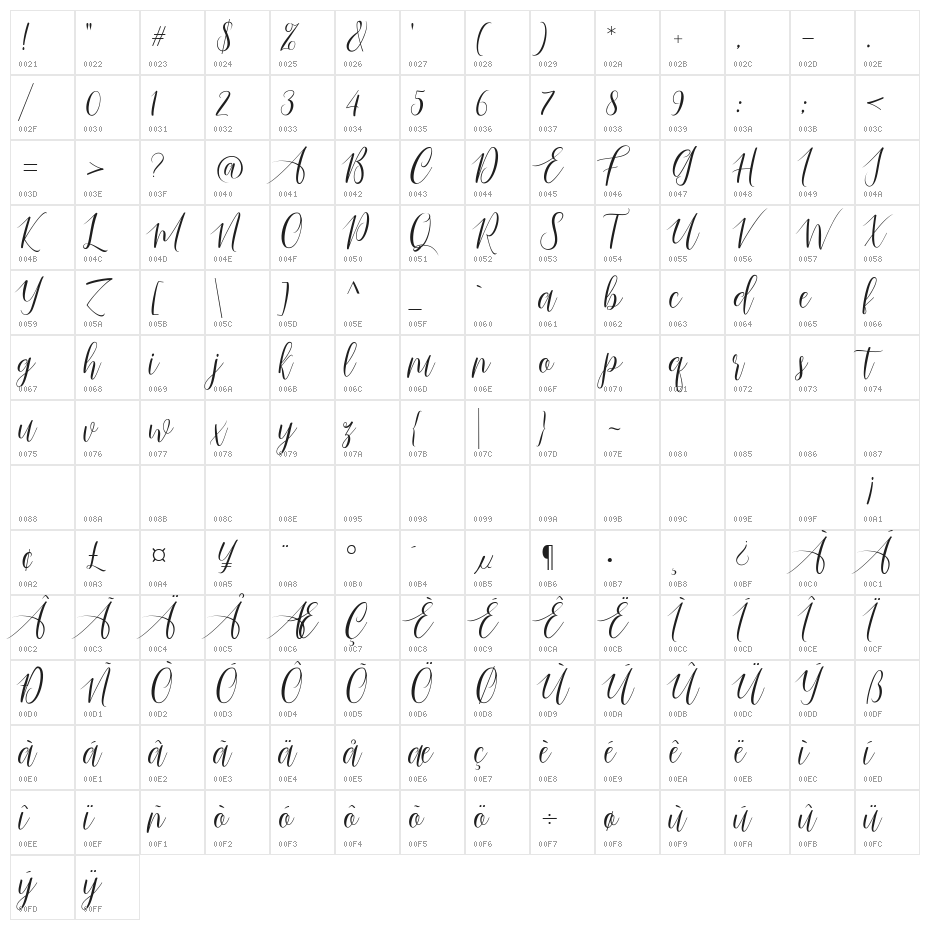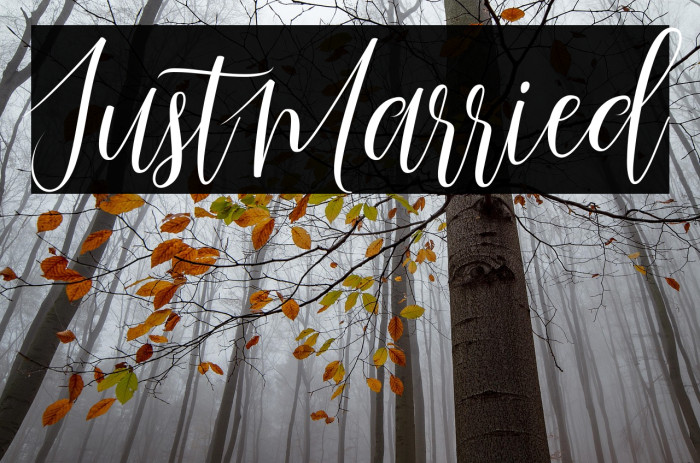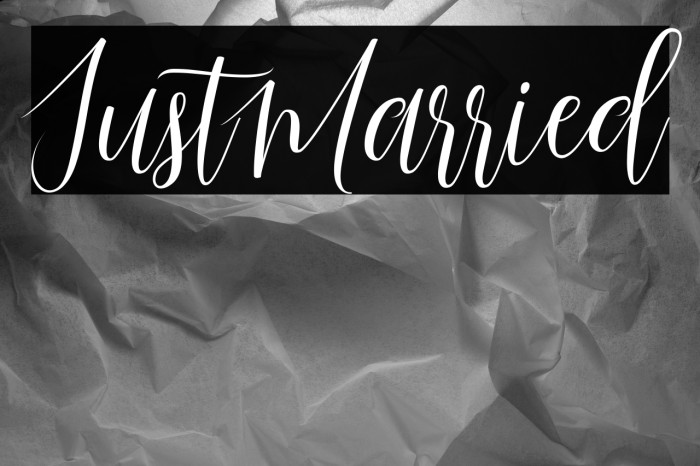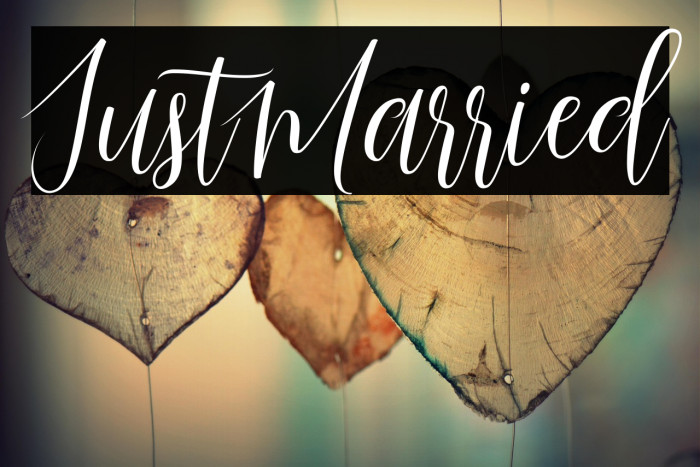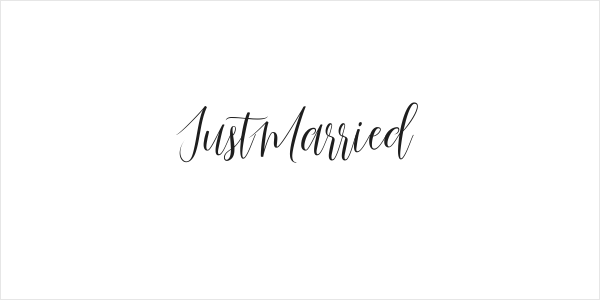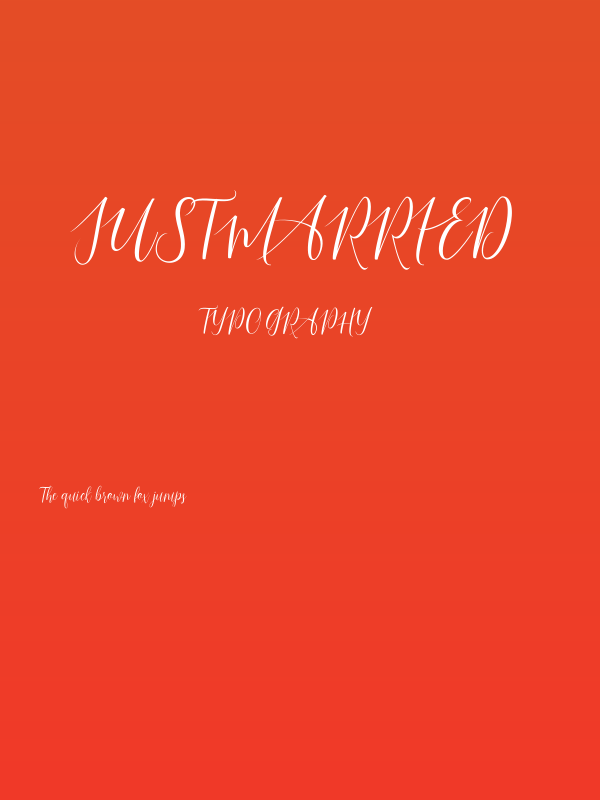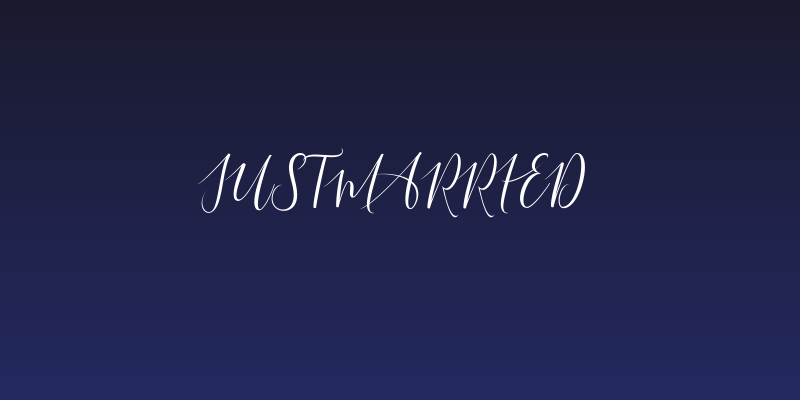
JustMarried Font
JustMarried Description
This elegant script font features flowing, cursive letterforms with a modern touch. The uppercase letters are tall and graceful, with sweeping ascenders and descenders that add a sense of movement and fluidity. The lowercase letters are equally stylish, maintaining a consistent slant and smooth curves that enhance readability. The numerals are designed to complement the letters, with a similar slant and rounded forms. Special characters are included, maintaining the same elegant style, making this font versatile for various design needs. The overall appearance is sophisticated and romantic, ideal for projects that require a personal and artistic touch.
| Proposed Projects | Ideal for wedding invitations, greeting cards, branding, and elegant packaging designs. |